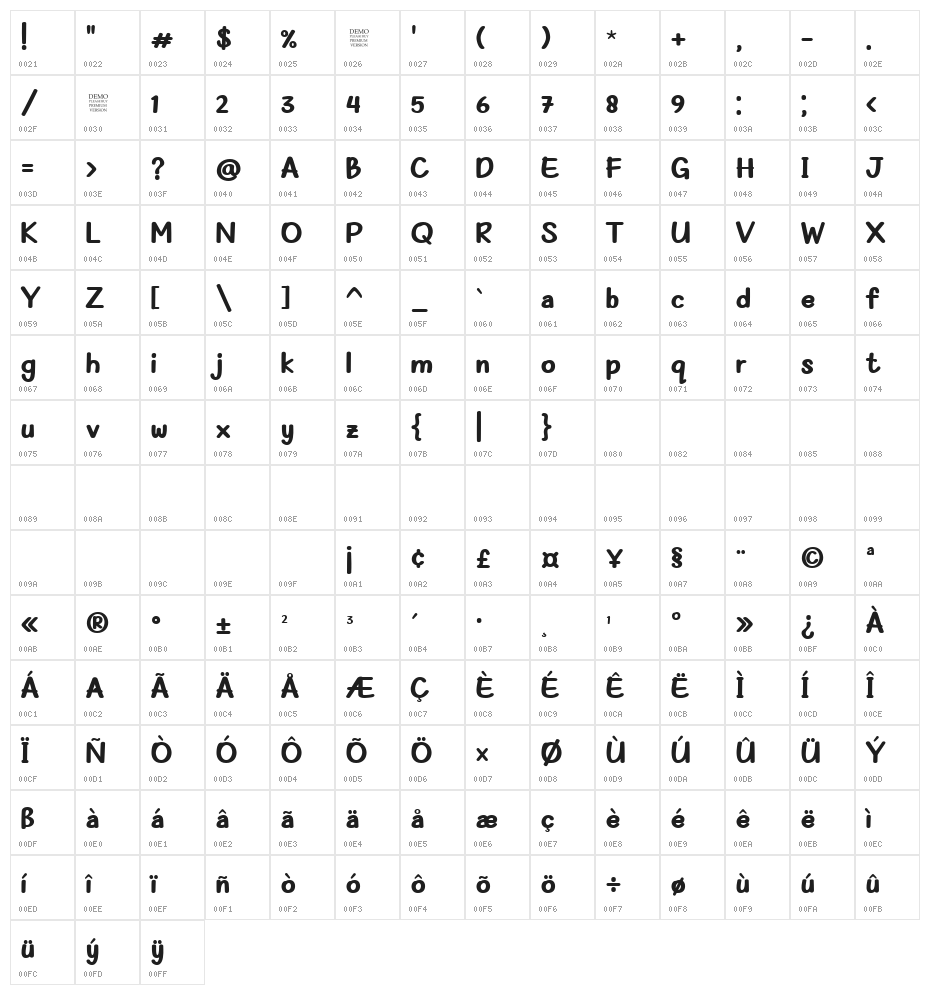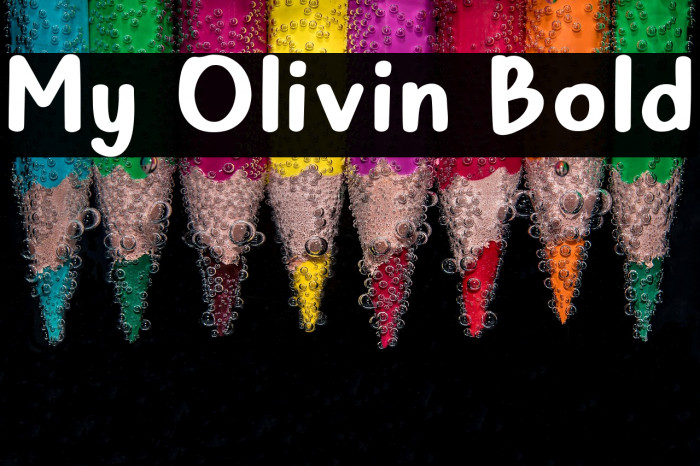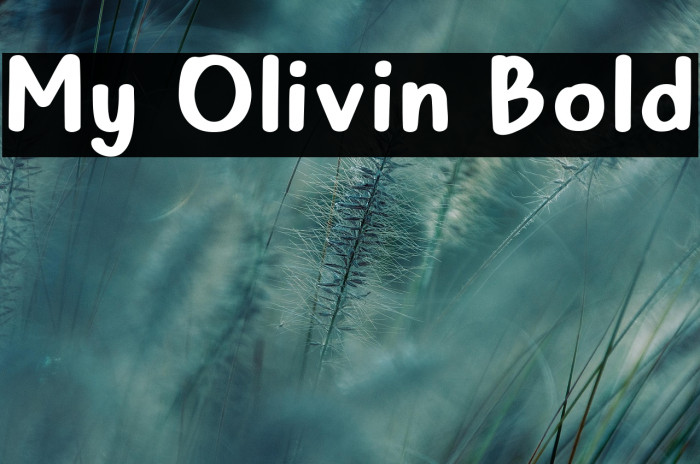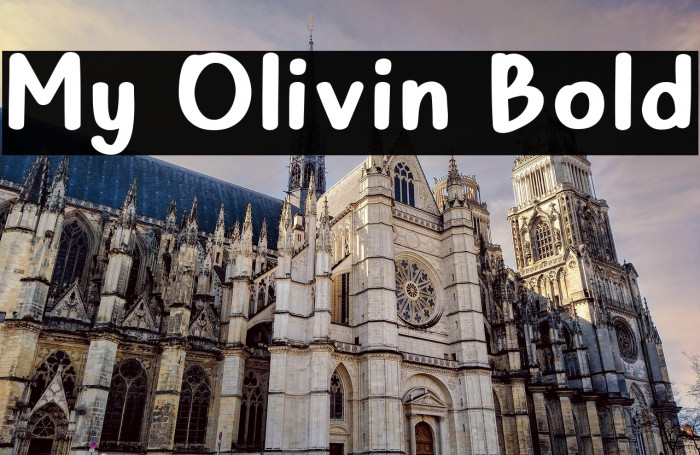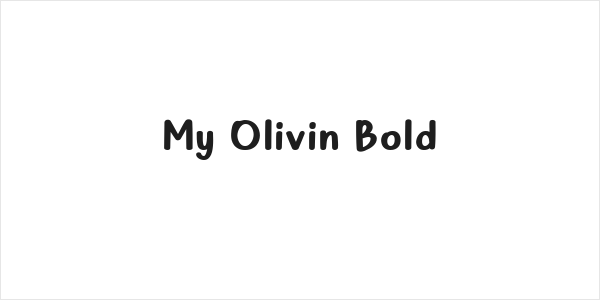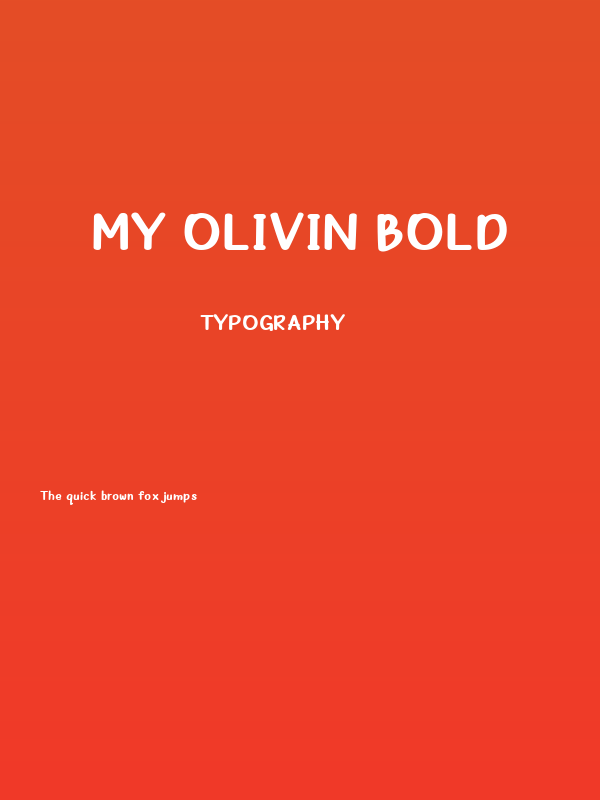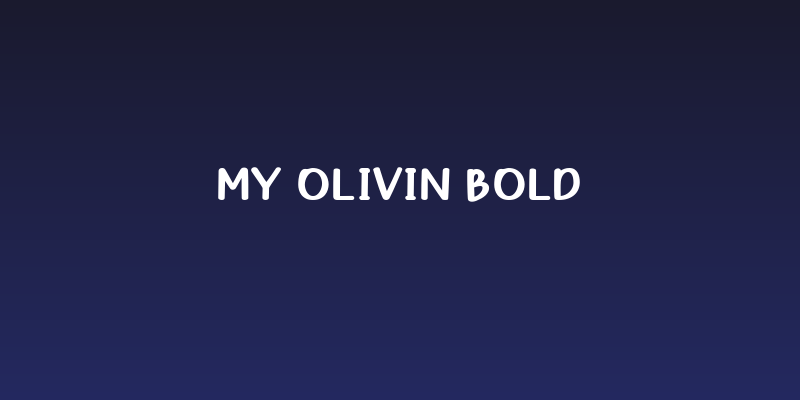
My Olivin Bold Font
My Olivin Bold Description
This font features a playful and bold style with rounded edges and a friendly appearance. The characters are thick and well-defined, making them highly legible. The uppercase and lowercase letters maintain a consistent weight, contributing to a cohesive look. The numerals and special characters follow the same design principles, ensuring uniformity across all glyphs. The font's overall aesthetic is casual yet impactful, suitable for a variety of creative applications.
| Overall Style | Playful, Casual |
| Proposed Projects | Ideal for children's books, playful branding, posters, and social media graphics. |